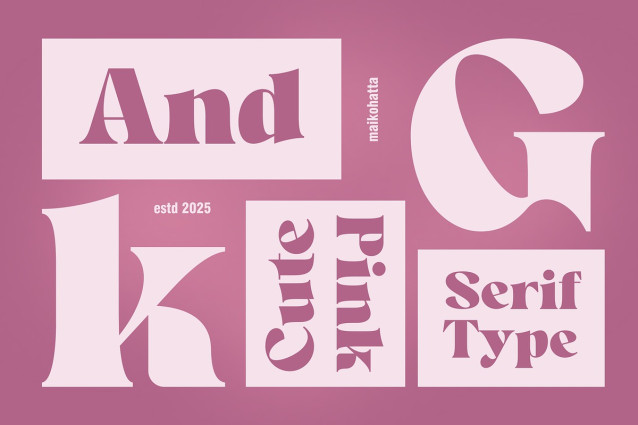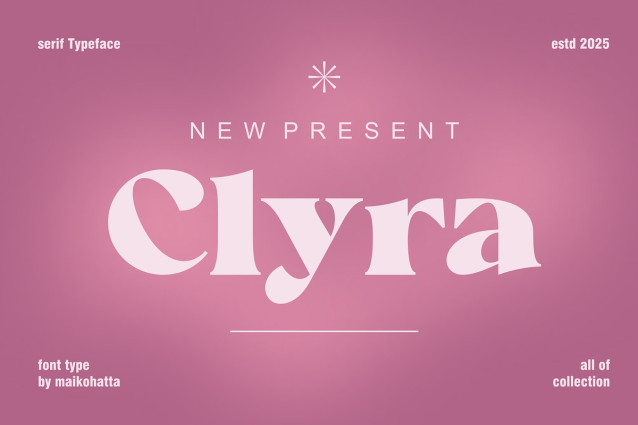
Clyra Font
Clyra Font, an elegant and sophisticated serif typeface crafted to bring a touch of refinement to any design. With graceful curves, high contrast strokes, and timeless proportions, Clyra is perfect for editorial use, branding, wedding invitations, logo design, and luxury packaging.
This typeface blends classic serif elements with a modern flair, delivering both beauty and readability. Whether you’re designing a magazine cover or a fashion label, Clyra exudes charm and confidence.